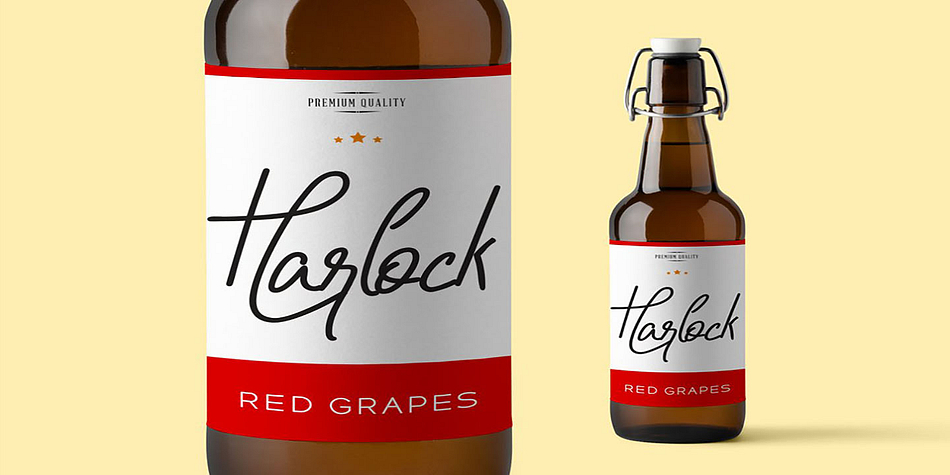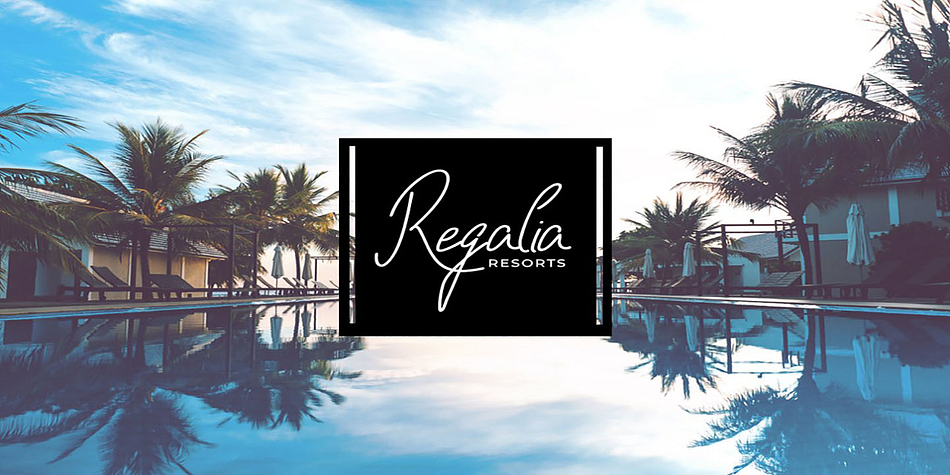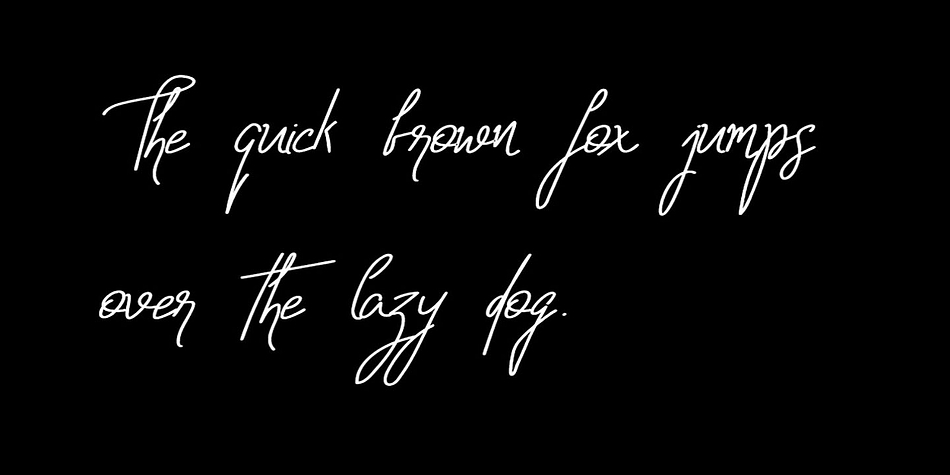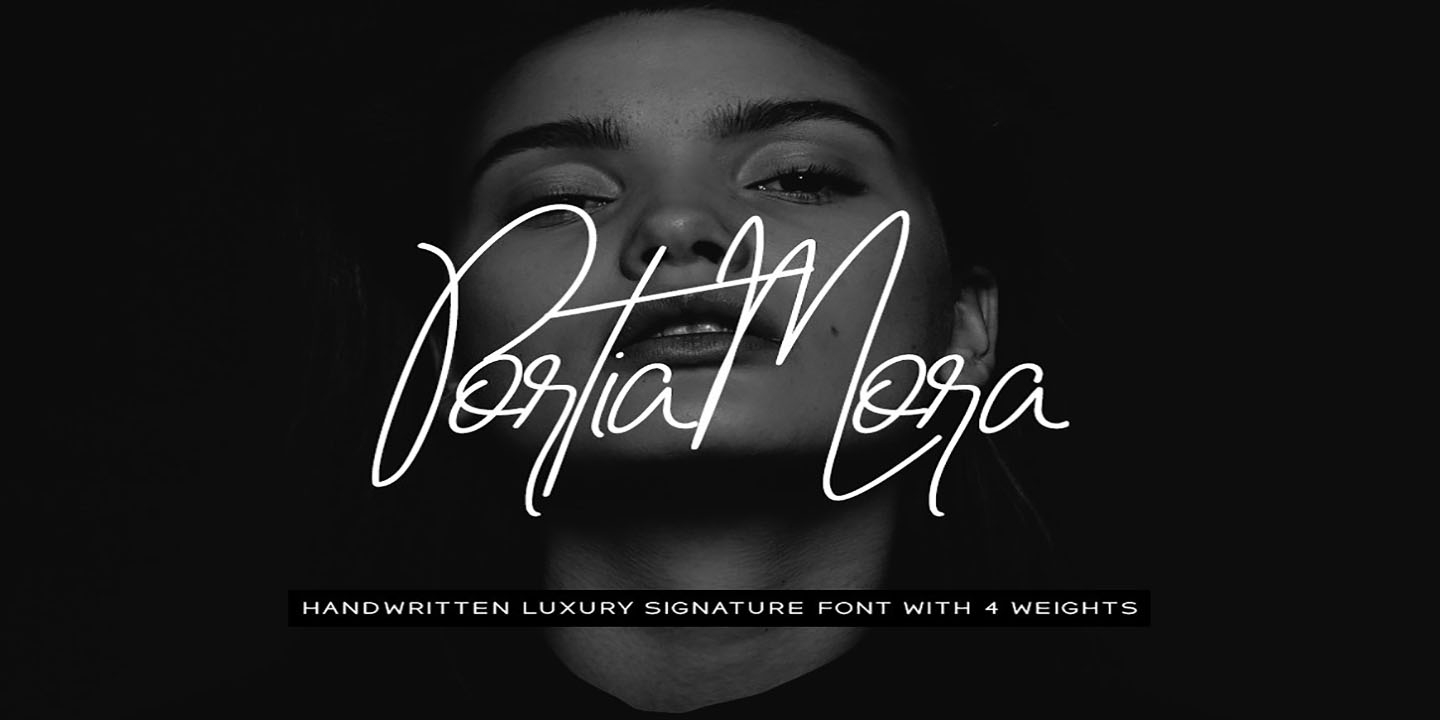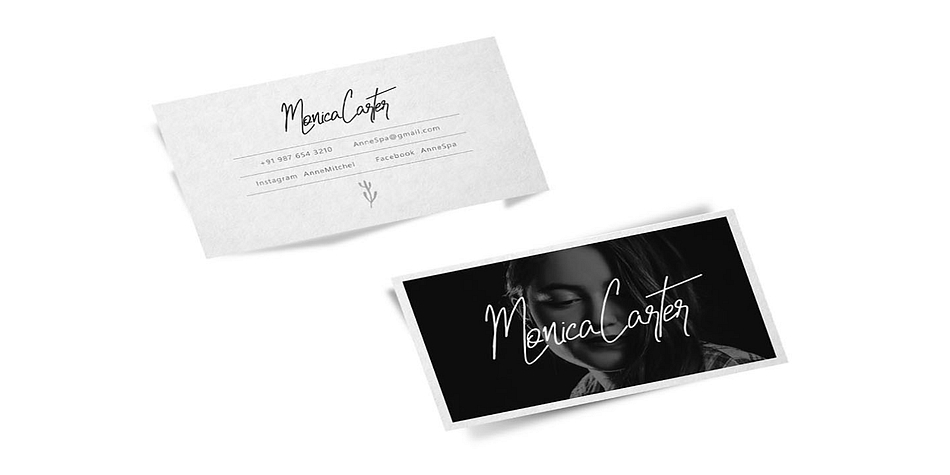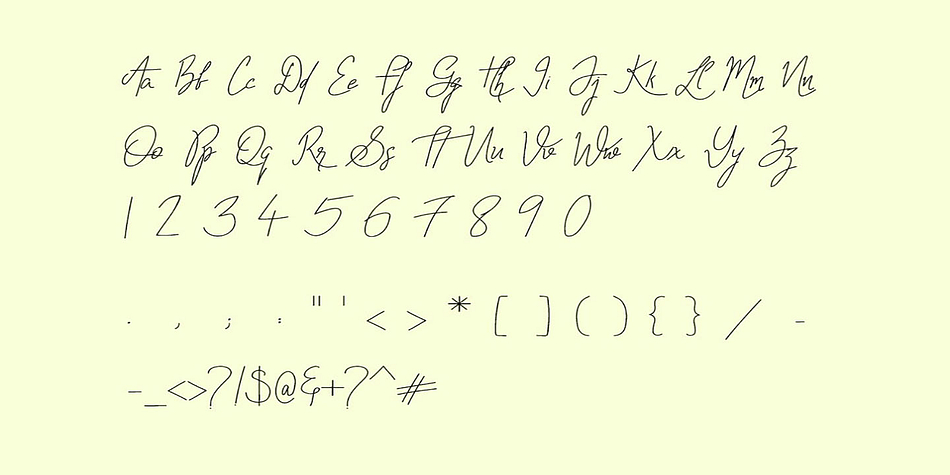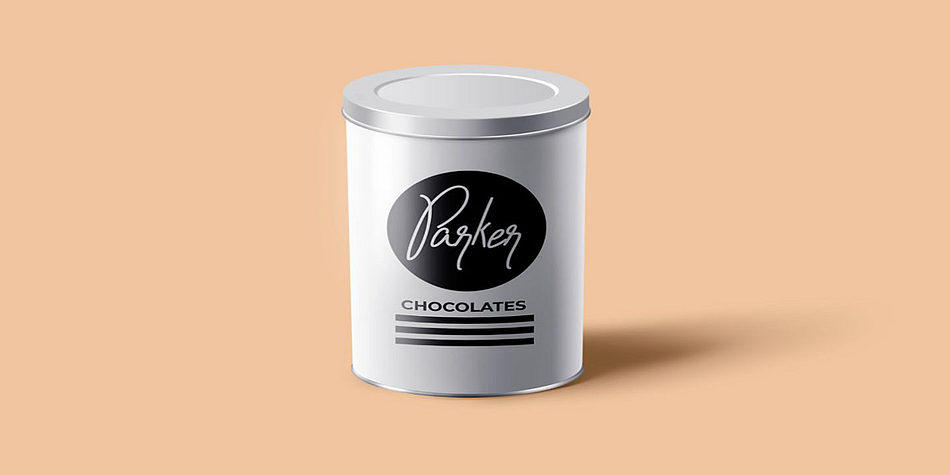
Portia-Mora
Portia-Mora is a hand drawn and script font family. This typeface has four styles and was published by Fontastica.
Portia-Mora is an extremely unique and beautiful handwritten signature font for luxury / branding / logotype / wedding invites / greeting cards / promotional graphics. Portia-Mora is handcrafted with an unique custom brushes (including 4 weights), having perfection and aesthetics at it’s level best.
The typeface contains 4 weights (Thin, Light, Regular, Bold) made with custom brushes having different properties for distinguished look and feel.
Advanced Kerning & Essential Ligatures:
We have performed advanced, in-depth kerning to make sure the font looks amazing on all possible letter combinations.